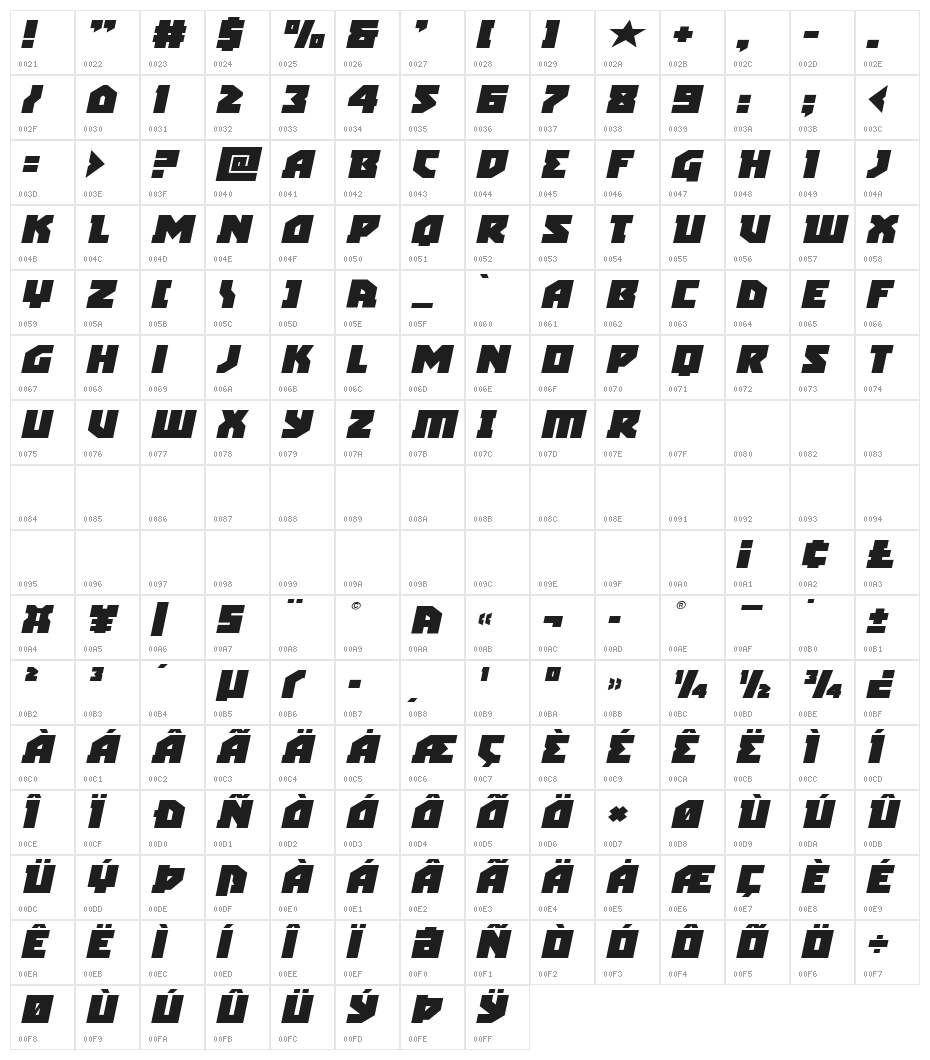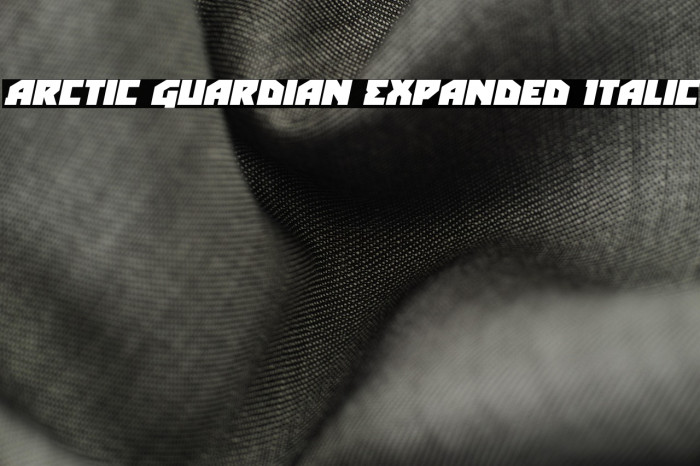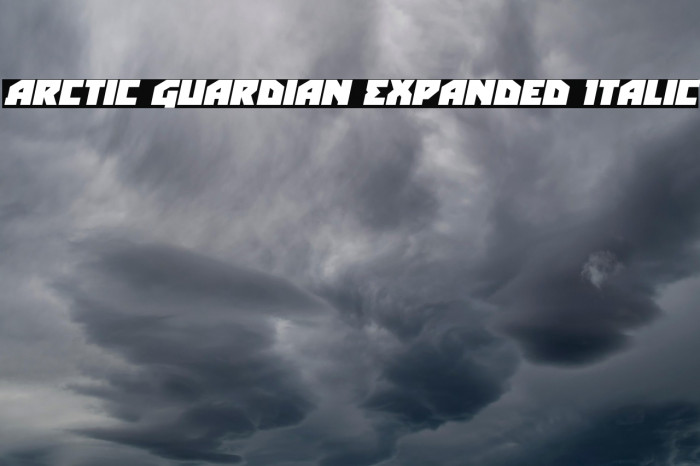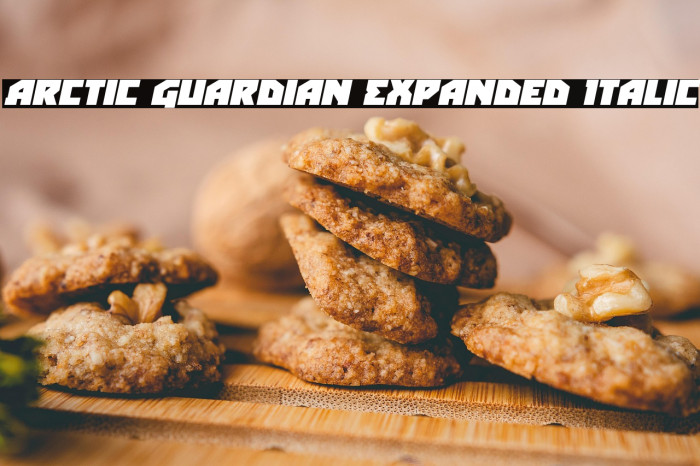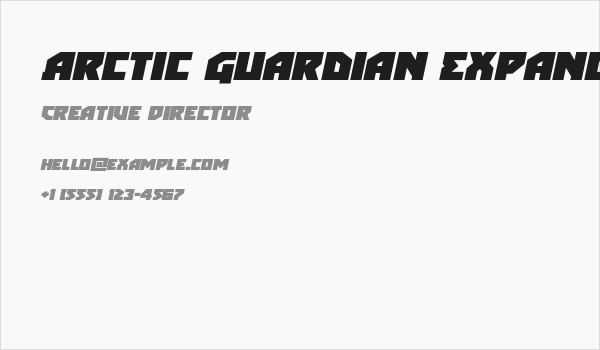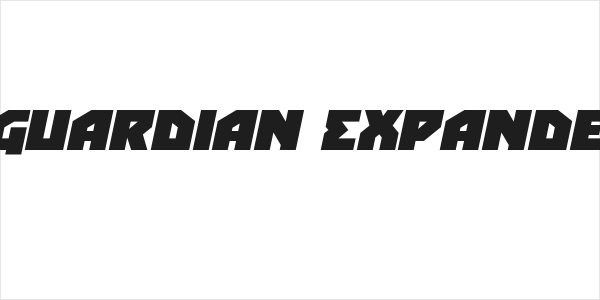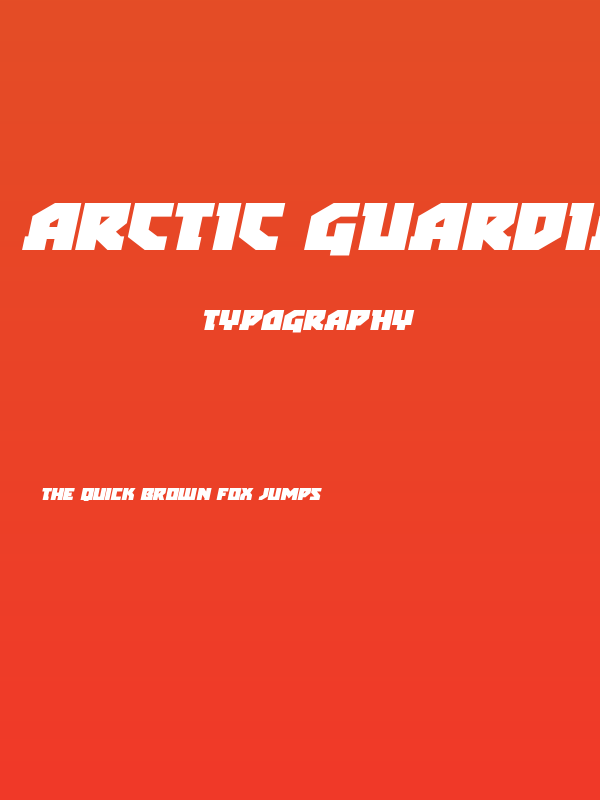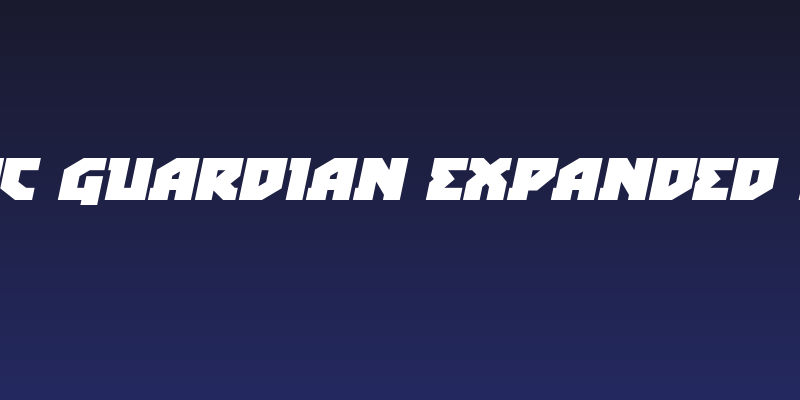
Arctic Guardian Expanded Italic Font
Arctic Guardian Expanded Italic Description
This font features a bold and dynamic style with a distinctly angular and geometric design. The characters are expanded and italicized, giving them a forward-leaning, energetic appearance. The sharp edges and thick strokes create a sense of strength and modernity, making it ideal for attention-grabbing headlines or branding. The uppercase and lowercase letters maintain a consistent style, with numerals and special characters following the same bold and angular theme. The overall look is both futuristic and assertive, suitable for projects that require a strong visual impact.
| Proposed Projects | Ideal for sports branding, video game titles, action movie posters, and dynamic advertising campaigns. |